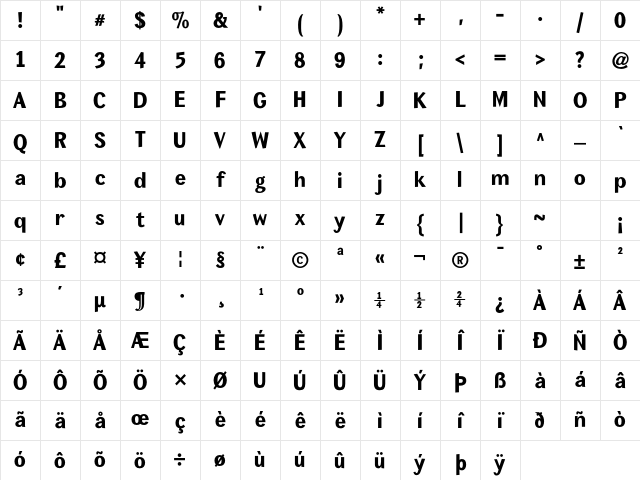
MexSans ExtraBold Free Font
MexSans ExtraBold
Design Context for MexSans
MexSans is a composed and adaptable typeface that performs quietly and consistently across a wide range of design contexts. Its bold stroke weight gives it real presence on the page.